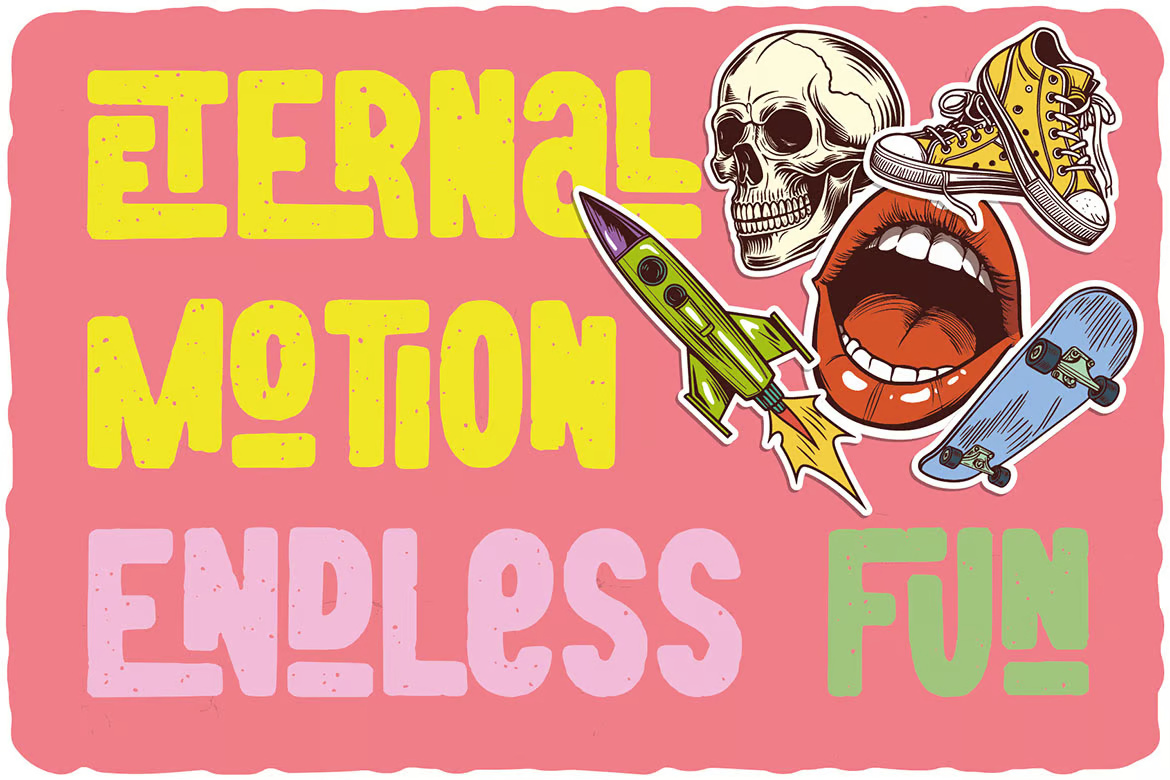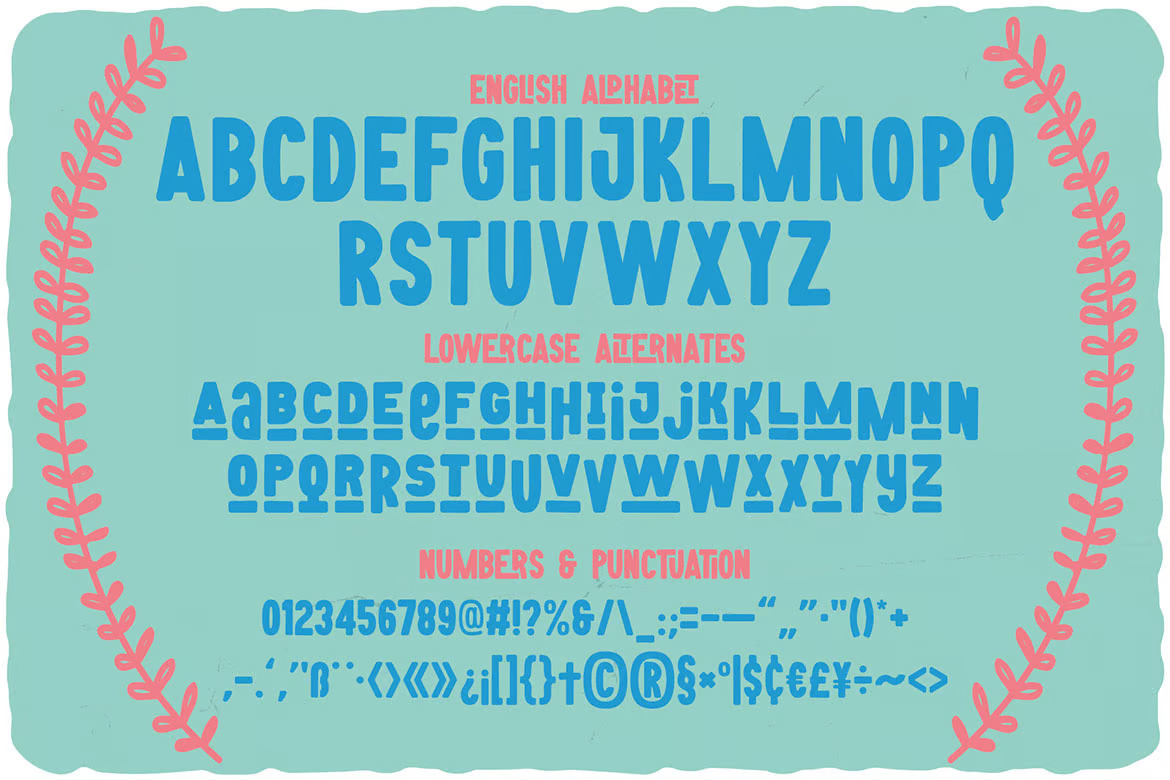
Youth Energy Label Font
Youth Energy is a playful display typeface that embodies a fun and carefree sans-serif style, capturing the spirited essence of youth. Its design is well-suited for projects targeting younger audiences, such as sports posters, school supplies, YouTube covers, and social media page covers.
Youth Energy Label Sans-Serif Font